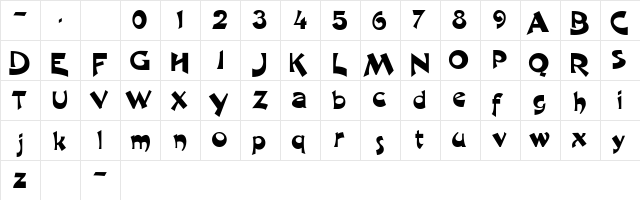
R1999 Regular
Design Context for R1999 Typeface
R1999 is a composed and adaptable typeface that performs quietly and consistently across a wide range of design contexts.